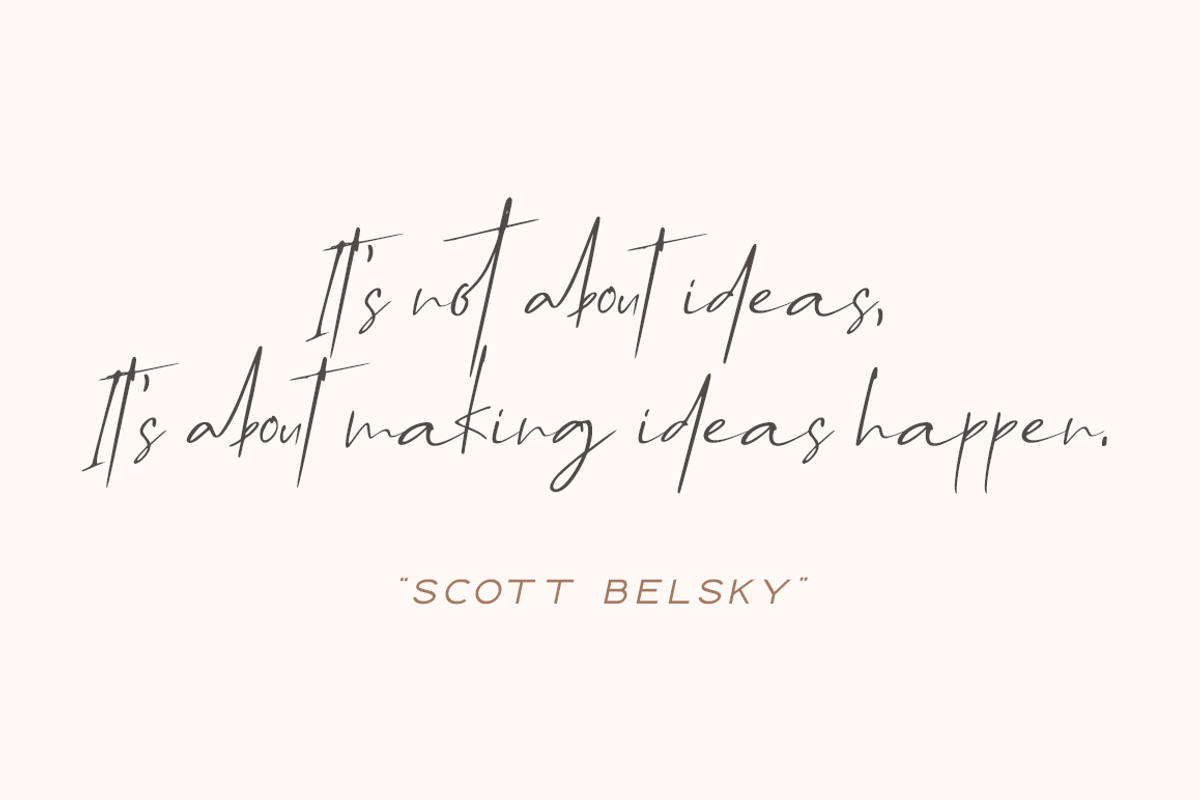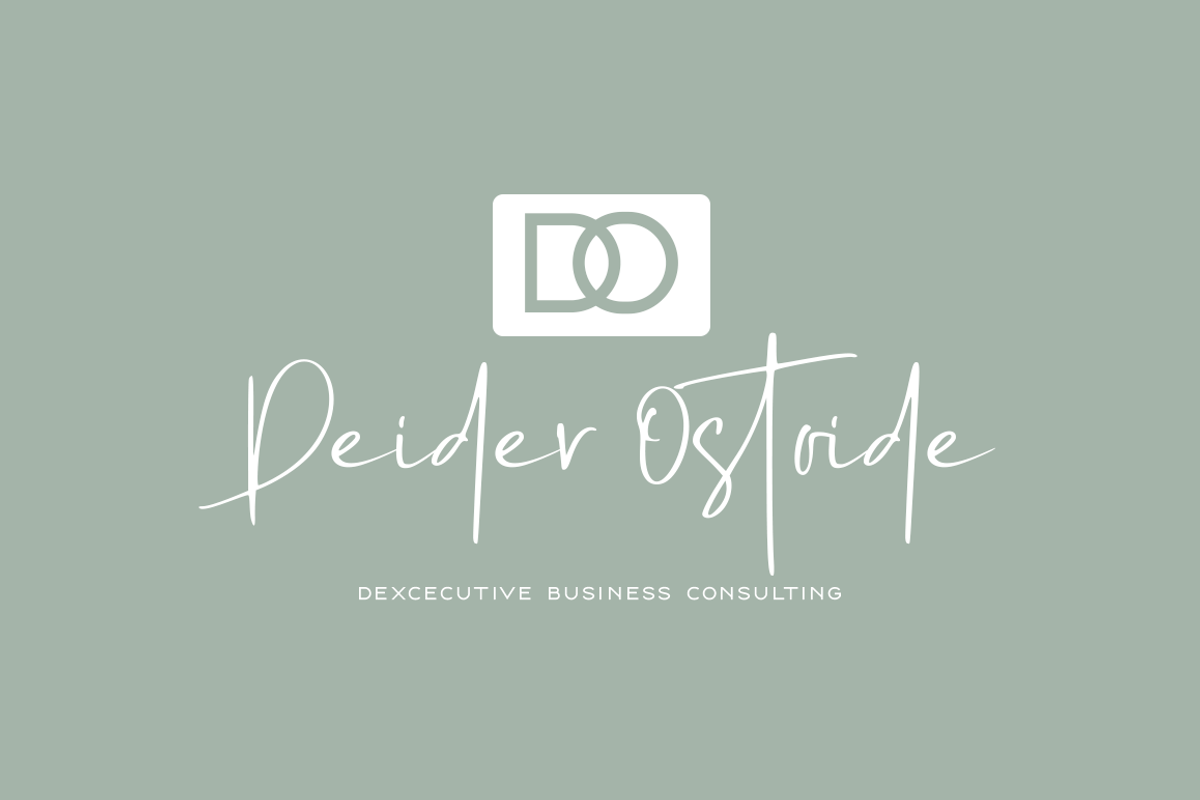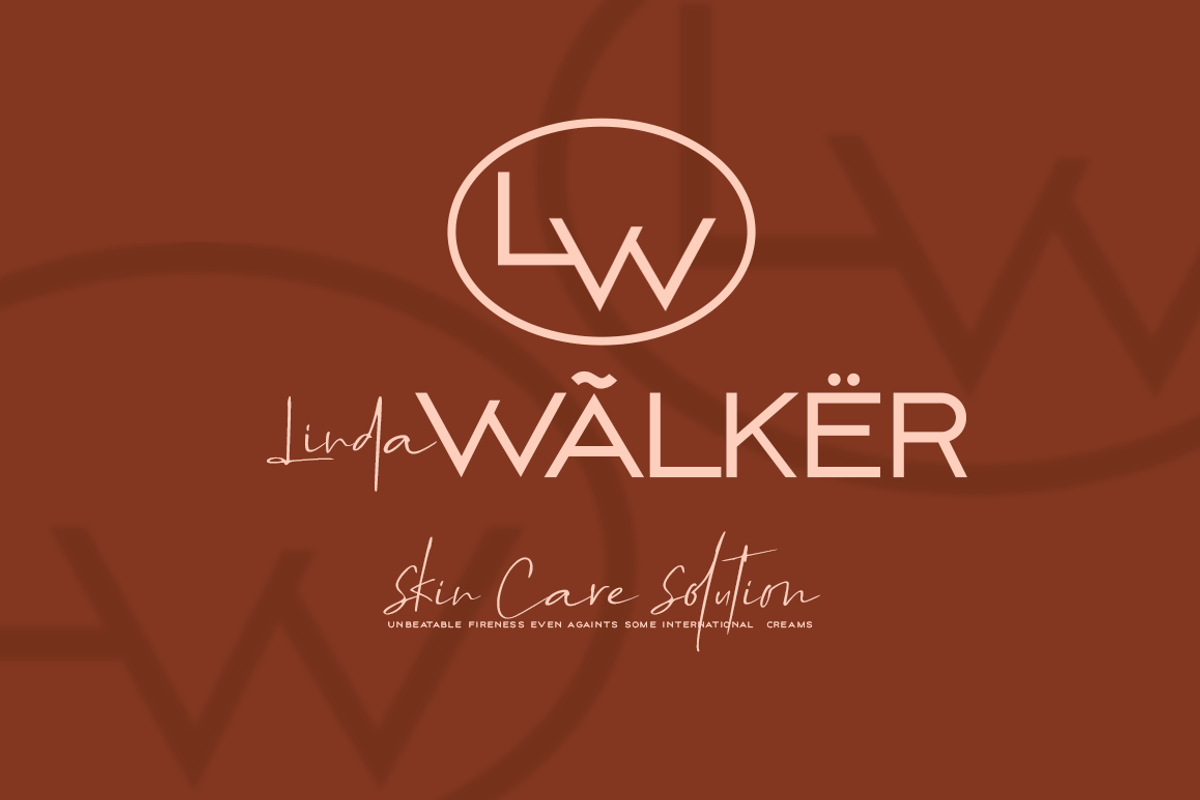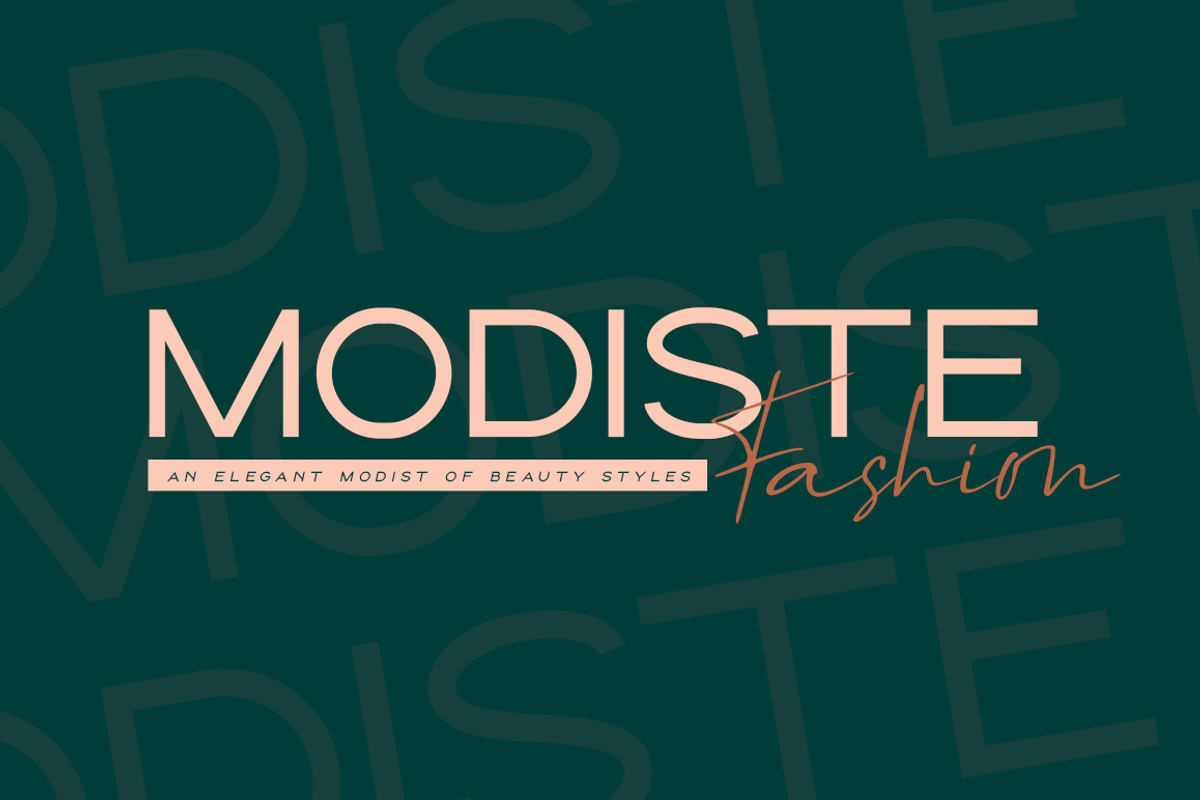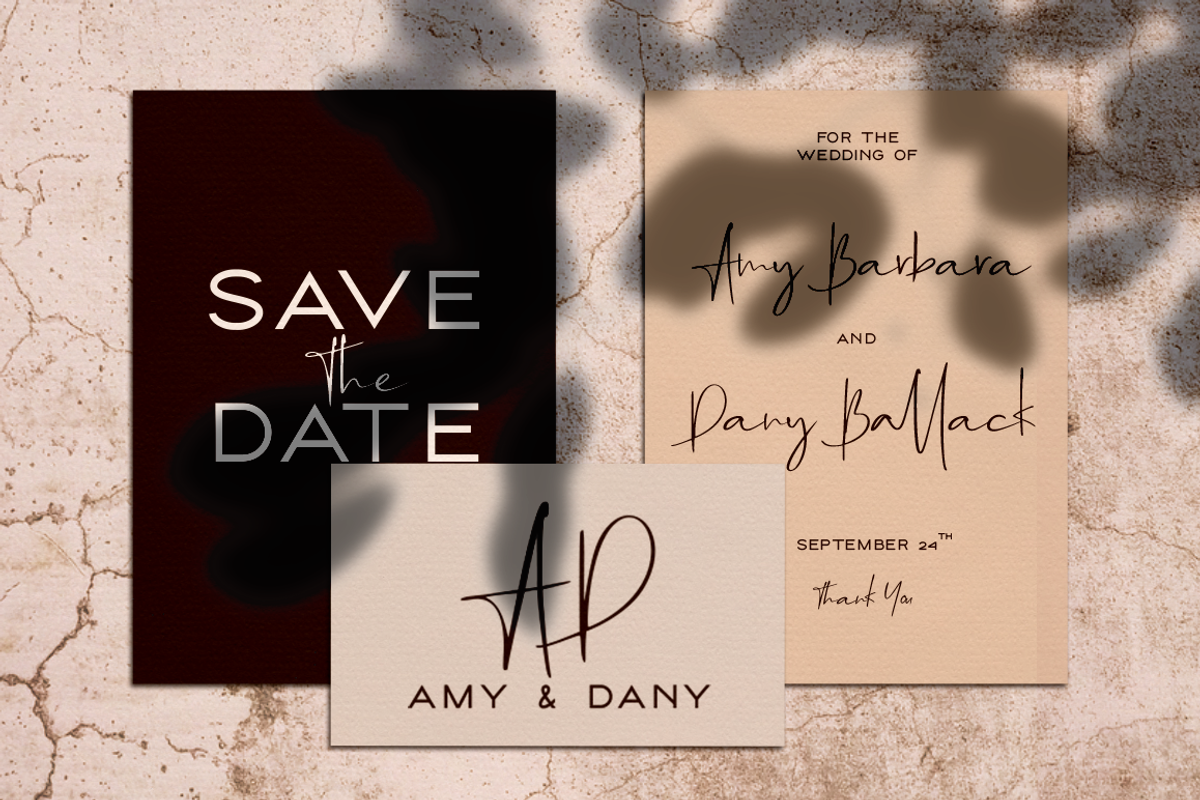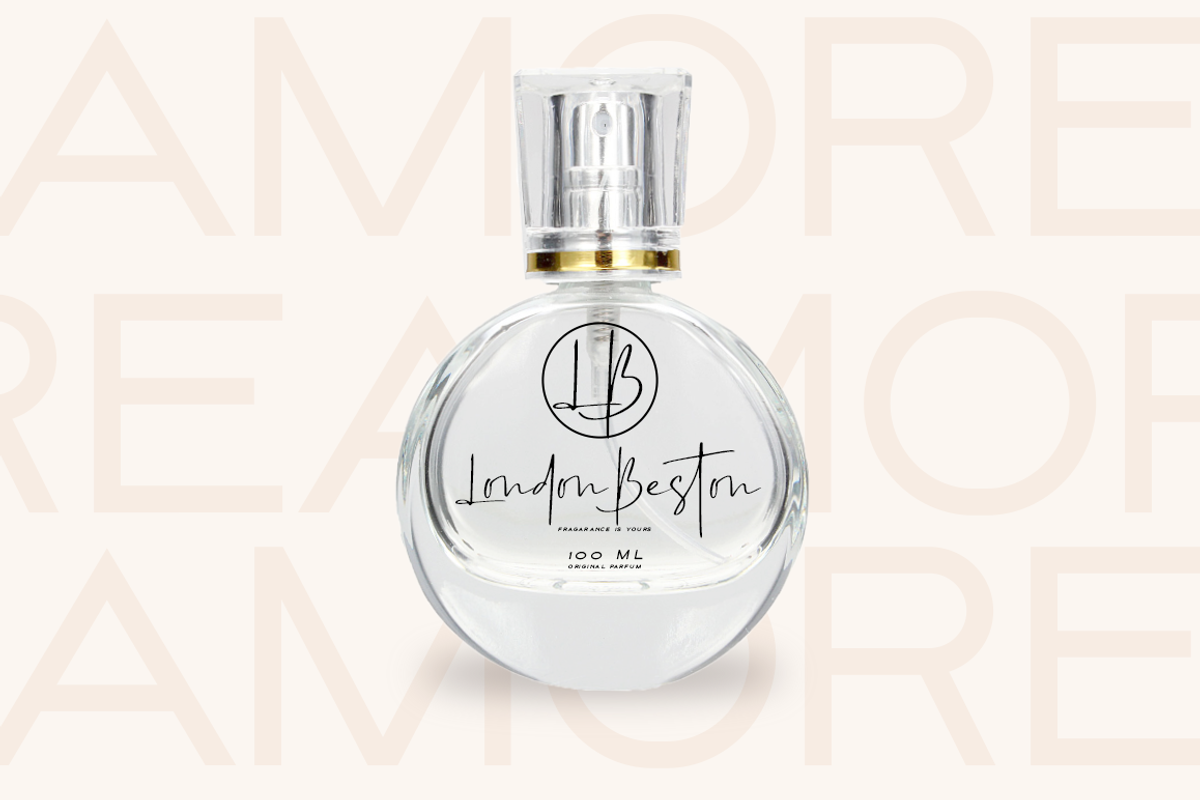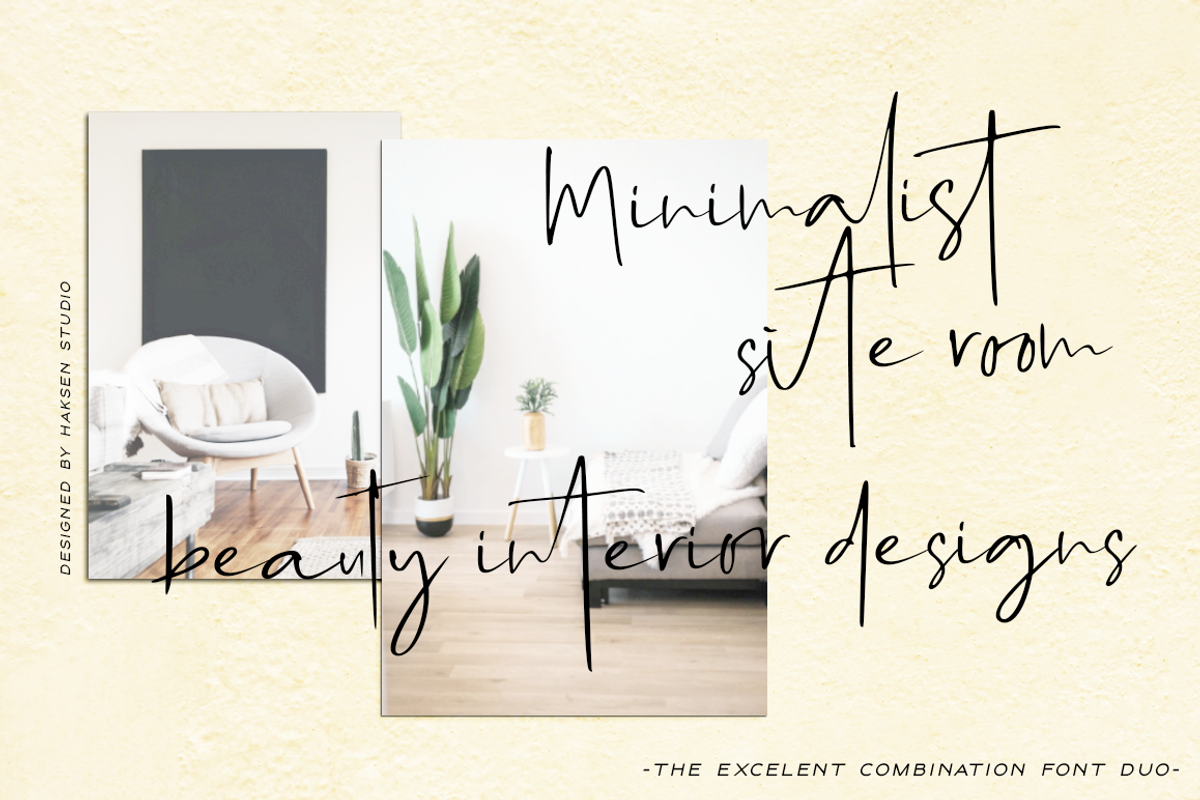
High Billion Font Duo
Introduce Excellent combination modern font duo in High Billion the stylish modern and natural fonts combination with casual chic flair. These are perfect for branding, wedding invites and cards, and more option for your requirement.
High Billion include two font styles with full set of natural hand draw for script and elegant with all uppercase letters for sans serif. Numerals, a large range of punctuation and ligatures giving realistic hand-lettered style.
- High Billion include two font styles with full set of natural hand draw for script and elegant with all uppercase letters for sans serif.
- Numerals, a large range of punctuation and ligatures giving realistic hand-lettered style.
Why High Billion Font Duo is worth a look
High Billion Font Duo by Haksen fits naturally into Branding, posters, packaging, typography.